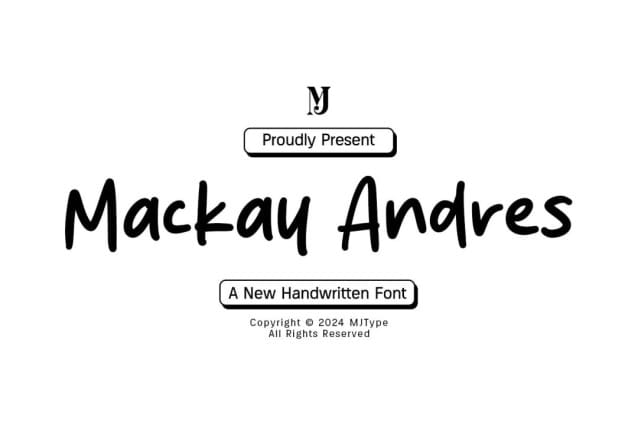
Mackay Andres Font
Mackay Andres Font is a simple and friendly handwritten font. Its natural and unique style makes it incredibly fitting to a large pool of designs. The only limit is your imagination!